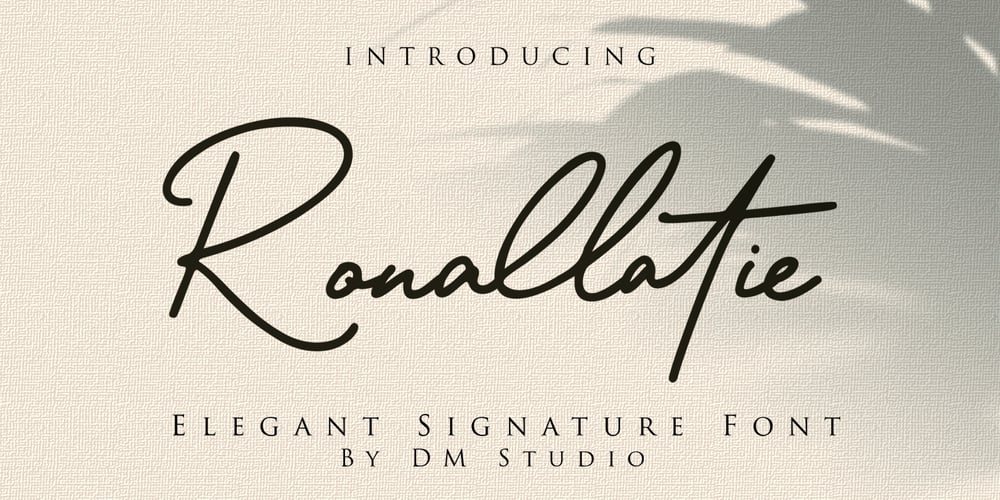
Ronalltie Font Family was designed by Dimas Prasetyo and published by DM Studio. Ronalltie contains 1 styles and family package options. Ronallatie Elegant Signature Font is a sophisticated and stylish typeface designed to emulate the fluidity and grace of a handwritten signature. Perfect for high-end branding, elegant invitations, and personal branding, this font brings a touch of refinement and personalization to your designs.Features: Elegant and Sophisticated Design: The Ronallatie Font captures the elegance of a handwritten signature, adding a refined and personal touch to your projects. Versatile Application: Ideal for high-end branding, wedding invitations, luxury stationery, personal logos, and more. Uppercase and Lowercase Letters: Includes both uppercase and lowercase letters for creative flexibility and diverse design possibilities. Ligatures and Special Characters: Offers a set of ligatures and special characters that enhance the natural and flowing appearance of your text. Punctuation and Symbols: A comprehensive set of punctuation marks, numerals, and symbols for consistent and versatile usage. Easy Installation and Use: Compatible with both Windows and Mac operating systems and integrates seamlessly with popular design software such as Adobe Photoshop, Illustrator, and InDesign.